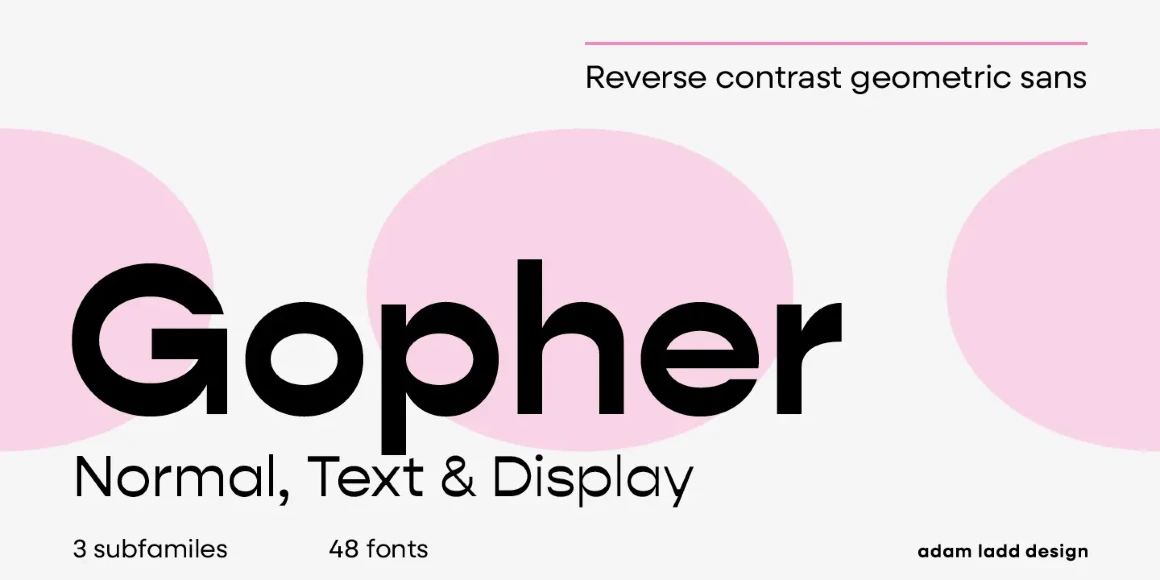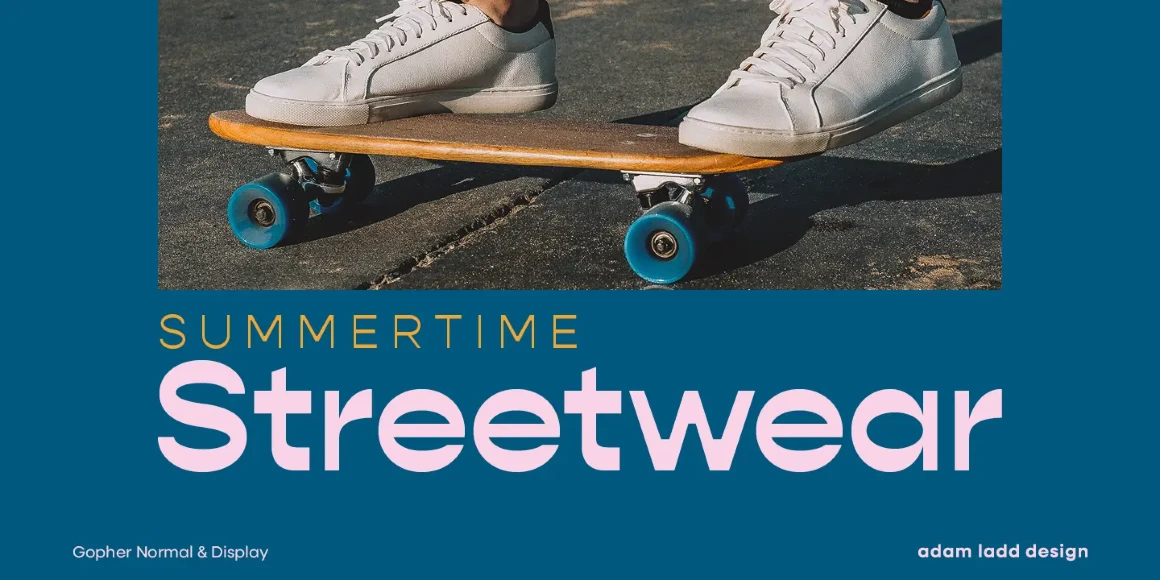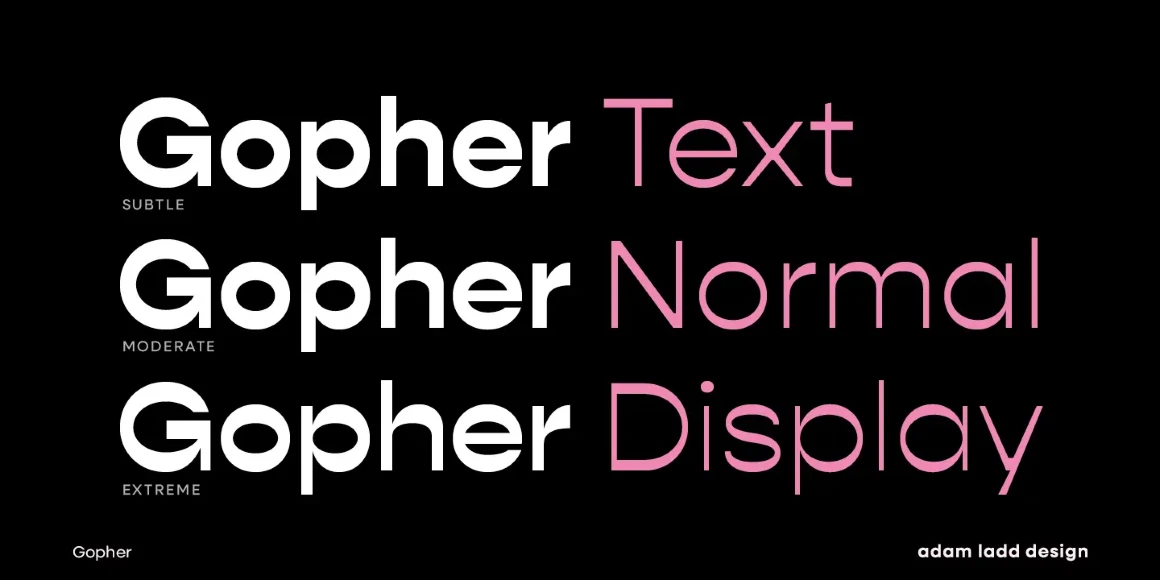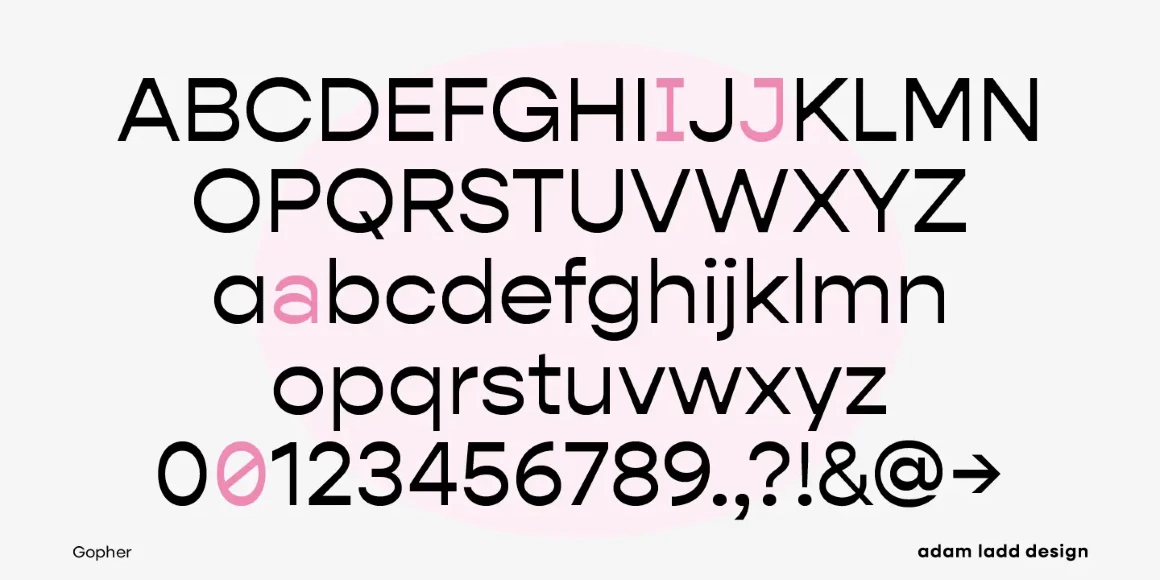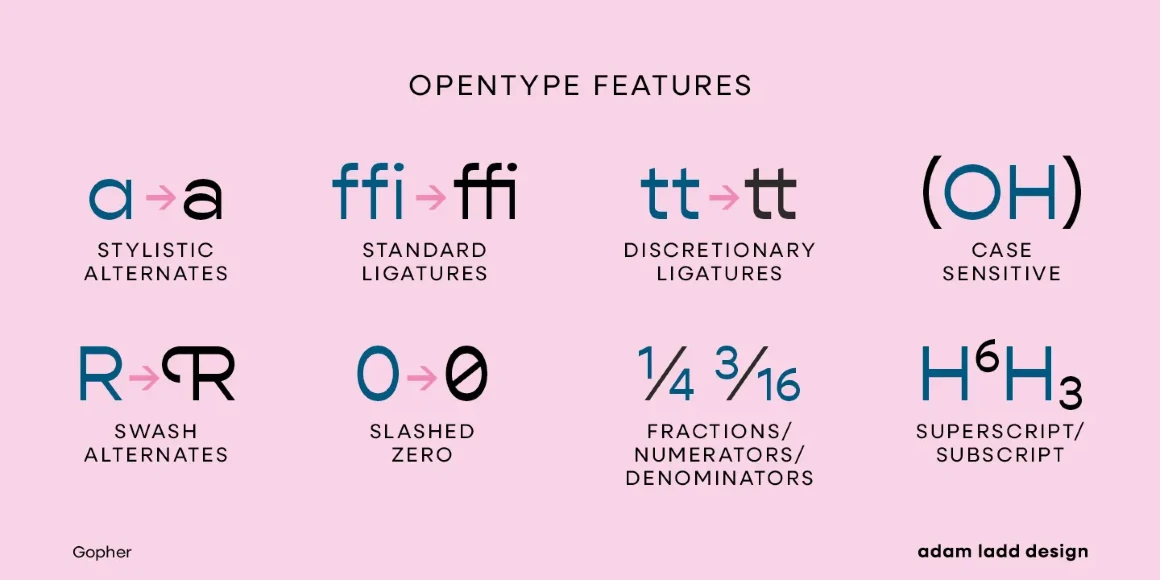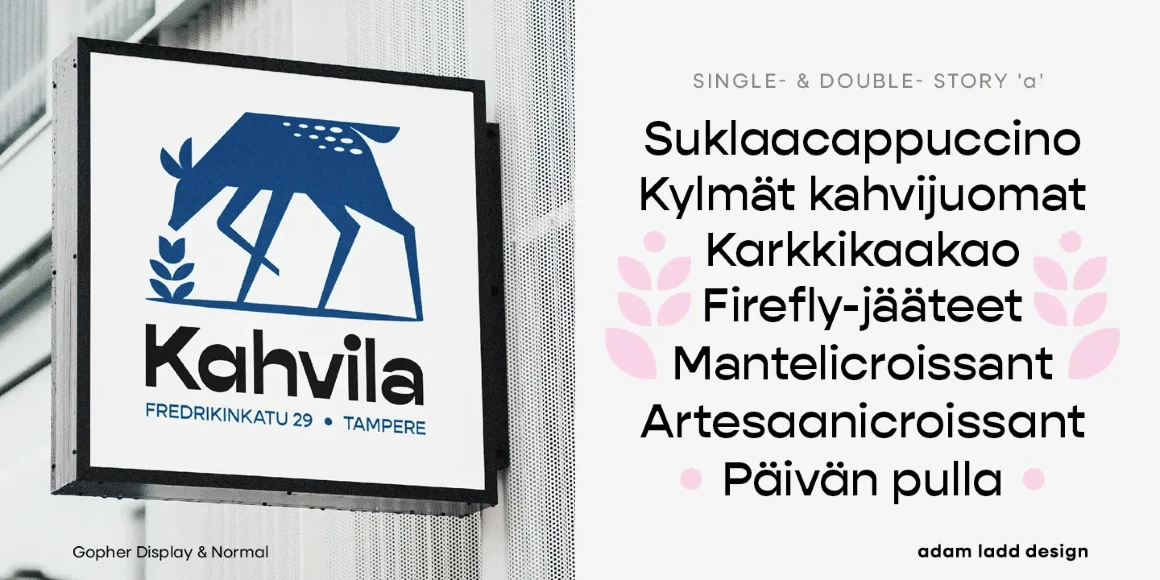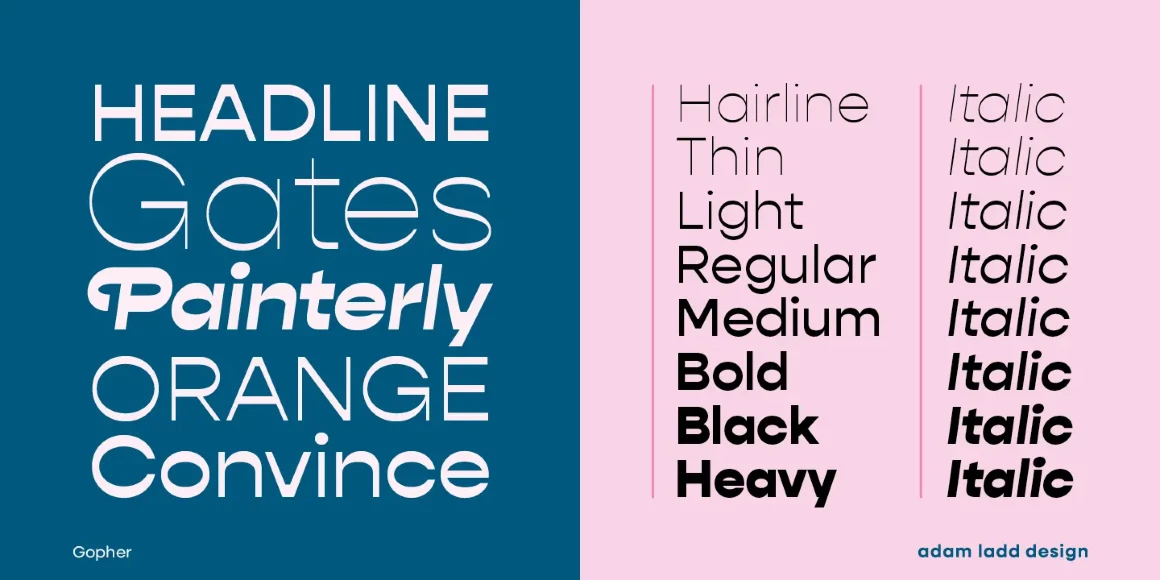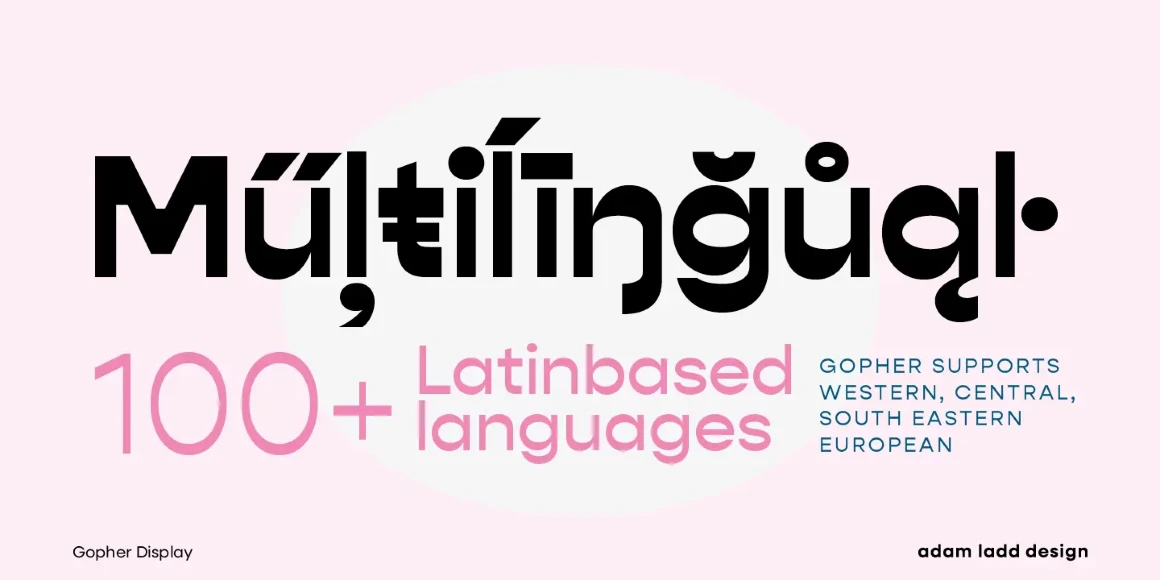
Gopher
From Adam Ladd Design
Gopher, Gopher Text, and Gopher Display comprise the families in this modernly quirky take on the reverse contrast, geometric sans. A variation in the amount of contrast distinguishes the three separate families while allowing them to work in harmony together. A generous range of dramatic affect adds to the versatility with Text having the most minor contrast and Display the most for immediate visual impact. The 48 included styles in the complete family range from hairline to heavy and italics.
Designed by Adam Ladd